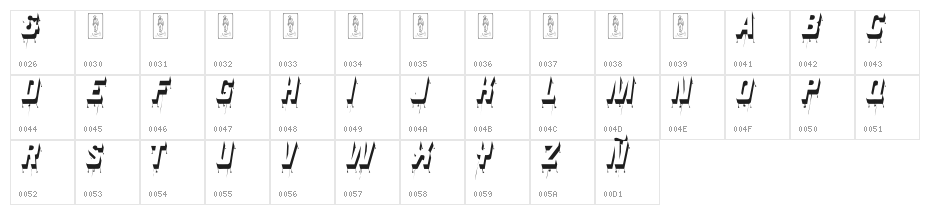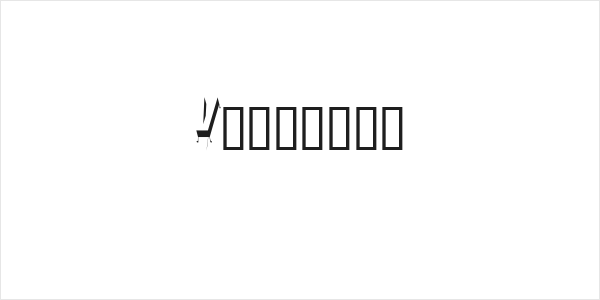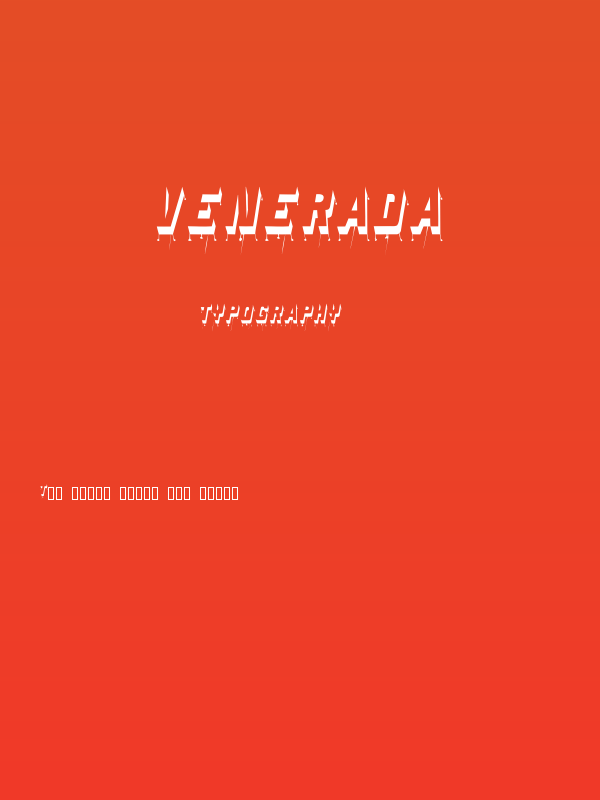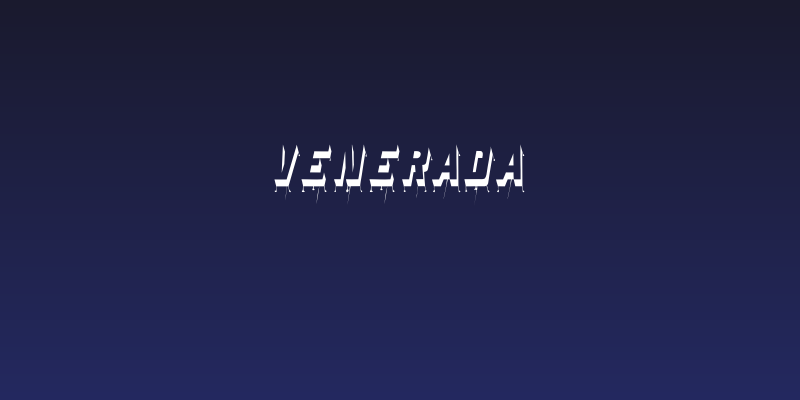
Venerada Font
Venerada Description
This font features a bold, angular design with a distinct shadow effect that gives each letter a three-dimensional appearance. The uppercase letters are sharply defined, with a slanted, italicized style that adds a sense of motion and dynamism. The font's unique character is enhanced by the use of thin, pointed serifs and a slight slant, making it stand out in any design. The overall look is modern and edgy, suitable for projects that require a strong visual impact.
| Proposed Projects | Ideal for branding, posters, album covers, and any design needing a bold statement. |